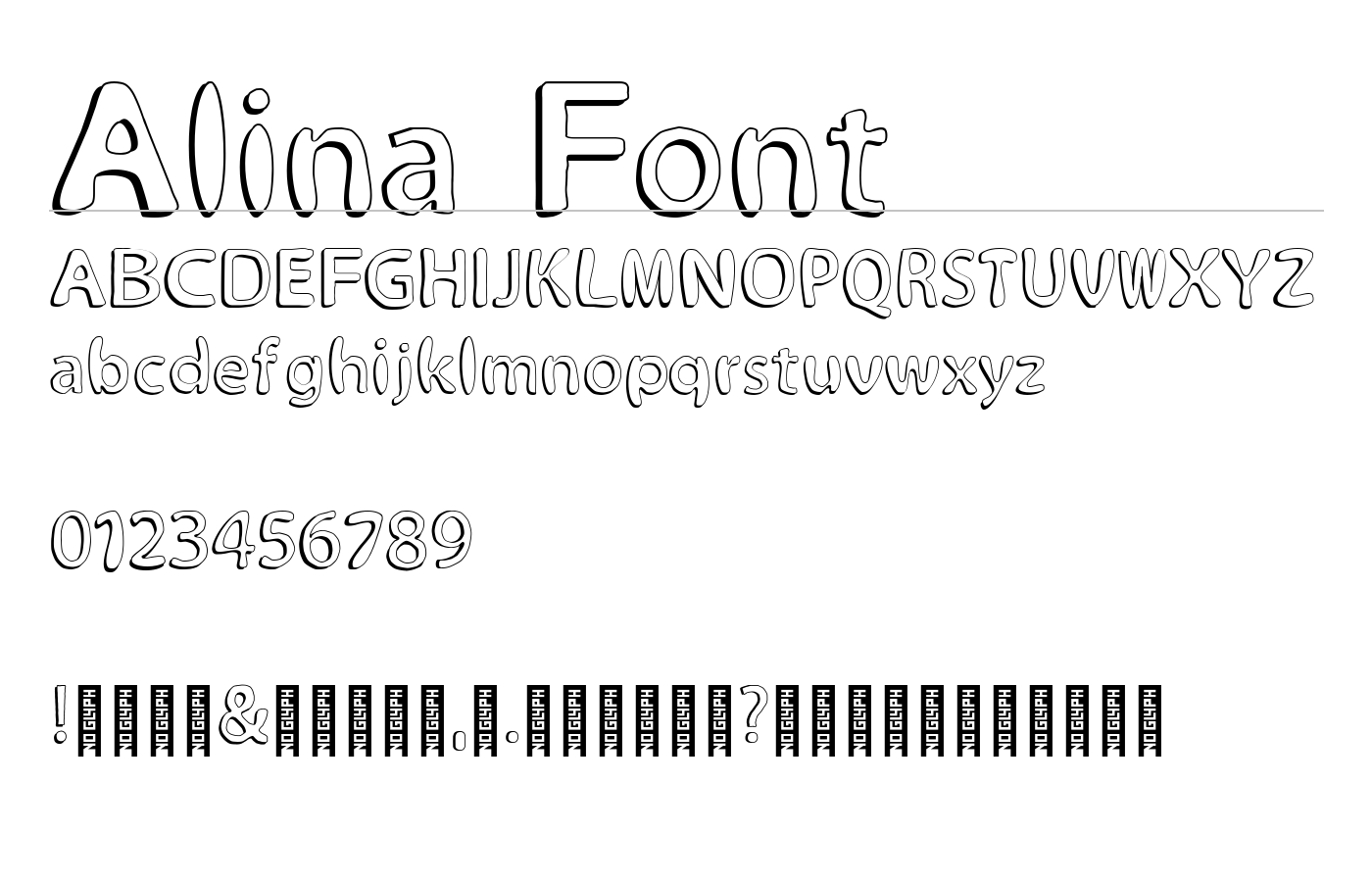
Alina Font is a playful, hand-drawn sans serif typeface characterized by its rounded shapes, uneven strokes, and lightly whimsical outlines. Its casual and friendly style makes it ideal for creative projects, children’s books, informal branding, or any design seeking a warm, approachable feel. This font works best in headlines, logos, and packaging where a unique, hand-crafted personality is desired.
Alina Font
About Alina Font
| Font family | Alina Font |
| Designer | Alina |